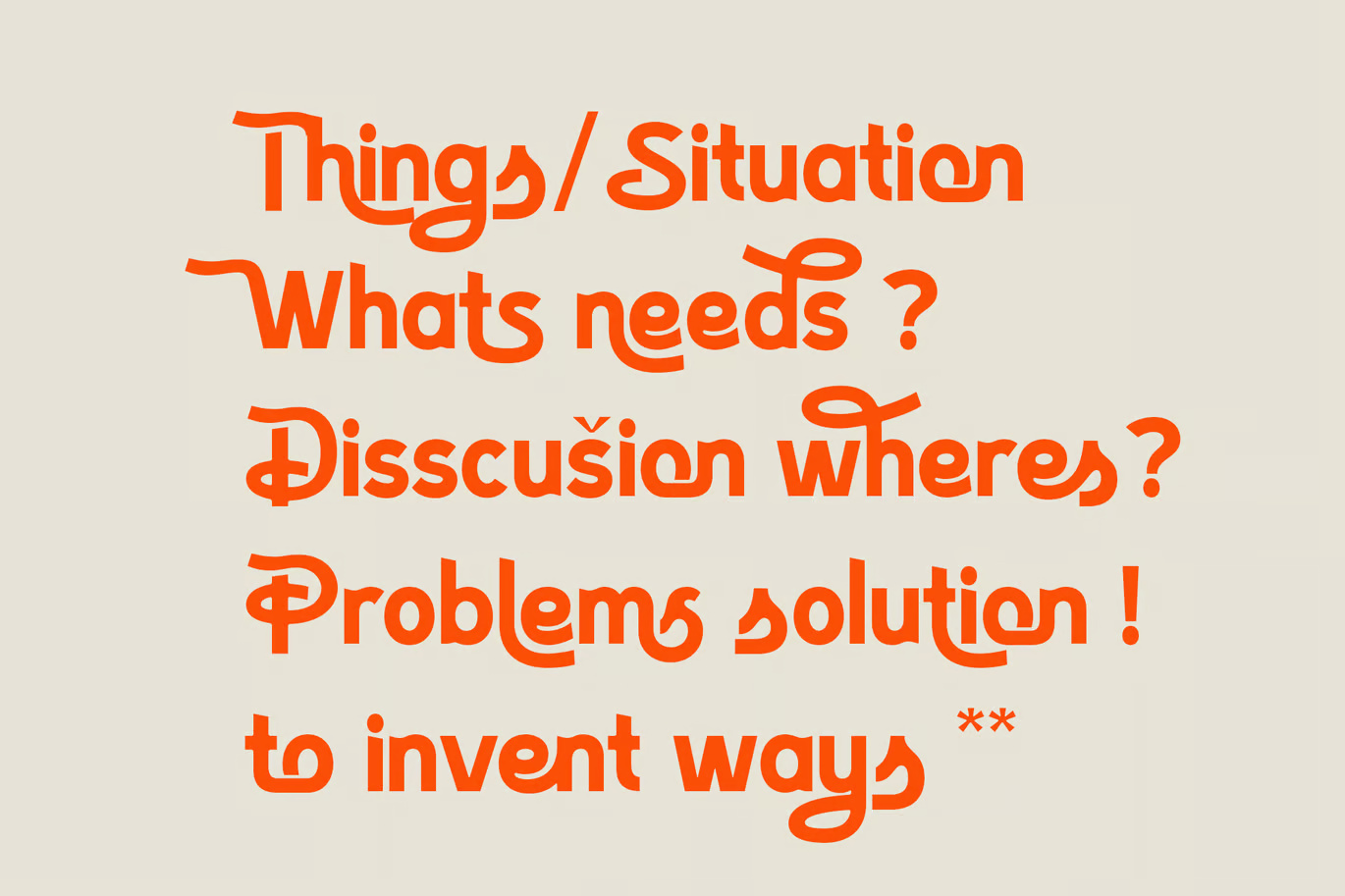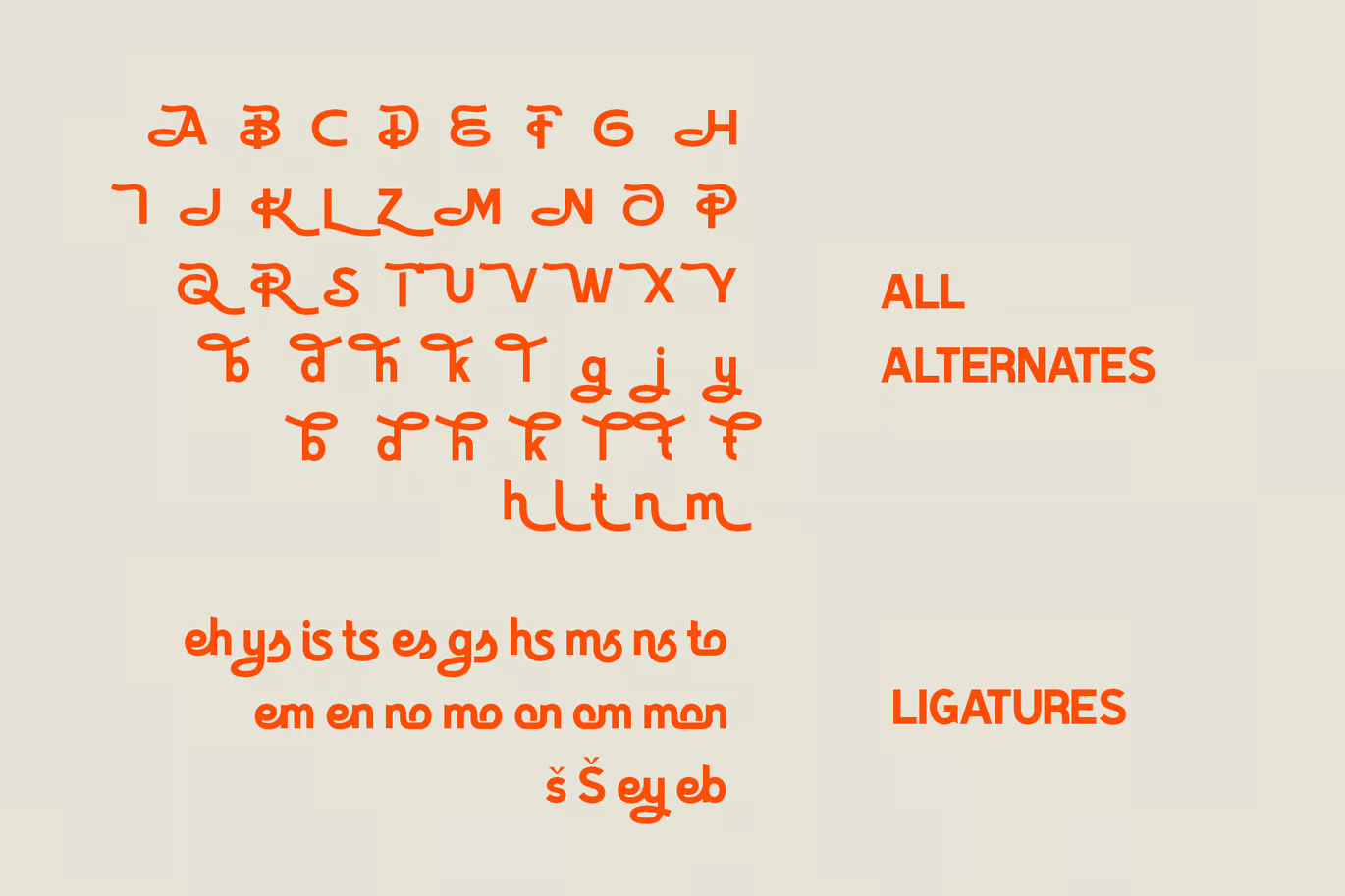
Nogams
Nogmas Font is a stylish, modern typeface featuring clean lines and a sleek aesthetic, perfect for logos, branding, posters, and headlines. Its balanced letterforms and professional flair make it ideal for bold, contemporary designs.
Nogams Sans-Serif Font